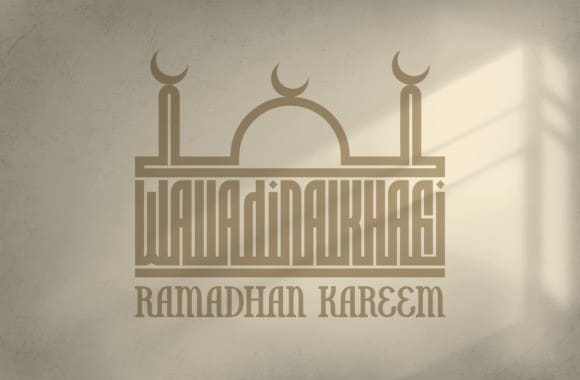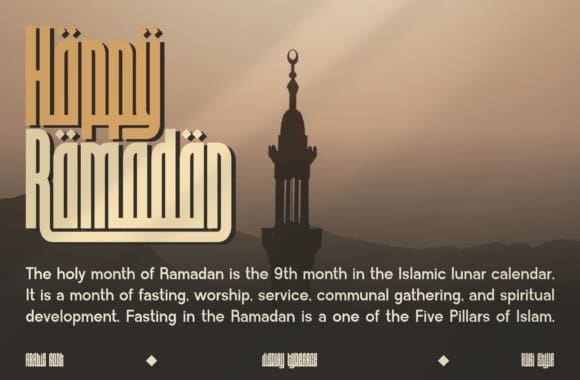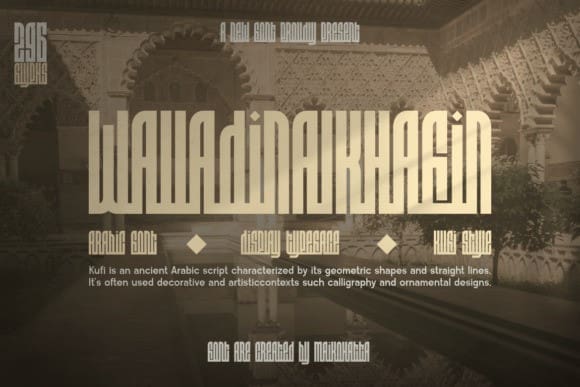
Walladinalkhafin Font
Walladinalkhafin Font – Arabic Kufi is a bold and authentic display font. The font is suitable for any branding project like logo, Template Design, esport, and many more. outstanding in a wide range of contexts.